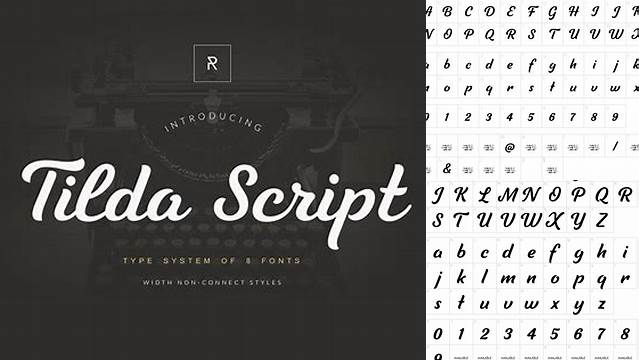
Hey guys! Ever stumbled upon a font that just speaks to you? A font that's elegant, readable, and oh-so-versatile? Well, let me introduce you to Tilda Script Regular, a typeface that might just become your new best friend in the design world. In this article, we're diving deep into everything you need to know about Tilda Script Regular, from its unique features and applications to where you can snag it for free. We'll explore why this font is a fantastic choice for a wide range of projects, and how you can make the most of it in your designs. So, grab a cup of coffee, get comfy, and let's get started on this typography adventure!
What Makes Tilda Script Regular So Special?
When it comes to fonts, it's not just about letters; it's about the feeling they evoke. Tilda Script Regular stands out because it strikes a perfect balance between sophistication and approachability. It's a script font, which means it mimics the flowing strokes of handwriting, giving it a personal and artistic touch. But what exactly makes Tilda Script Regular so special? Let's break it down:
First and foremost, its legibility is a major win. Some script fonts can be overly ornate, sacrificing readability for aesthetics. Tilda Script Regular, however, maintains a clear and graceful form, making it easy on the eyes even in longer texts. This is crucial, especially if you're planning to use it for body text or paragraphs, not just headlines.
Secondly, the versatility of this font is incredible. Tilda Script Regular isn't just a one-trick pony. Its elegant yet friendly appearance makes it suitable for a wide array of projects. Think wedding invitations, logos, branding materials, social media graphics, and even website headers. It can add a touch of class to formal designs while still feeling warm and inviting in more casual contexts. The flowing curves and the subtle variations in stroke width give it a handcrafted feel, making your designs look unique and personalized. This is especially important in today's digital world, where standing out from the crowd is essential. Using a font like Tilda Script Regular can help you achieve that distinct look that captures attention and leaves a lasting impression.
Another key feature is its personality. This font has character! It's not just a set of letters; it's a voice. The gentle curves and natural flow give it a human touch, making your designs feel more authentic and relatable. This is particularly important for brands that want to connect with their audience on an emotional level. Whether you're designing a heartfelt greeting card or a sophisticated business card, Tilda Script Regular can help you convey the right message with style and grace.
In summary, Tilda Script Regular is special because of its legibility, versatility, personality, and, of course, its price. It's a font that can elevate your designs, adding a touch of elegance and warmth without sacrificing readability or your budget. So, if you're looking for a font that can do it all, Tilda Script Regular might just be the perfect fit.